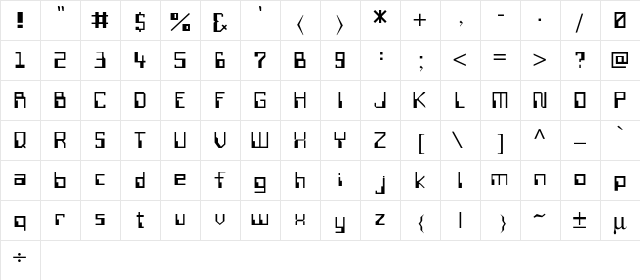
SillyconValley Regular
Design Context for SillyconValley Typeface
SillyconValley is a composed and adaptable typeface that performs quietly and consistently across a wide range of design contexts.